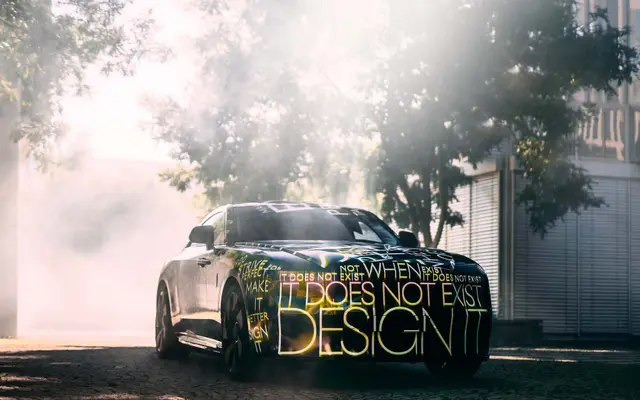
Riviera
Swiss Typefaces · Ian Party, Quentin Schmerber
A serif from Swiss Typefaces with design credits split between Ian Party (Regular) and Quentin Schmerber across the remaining styles.
Riviera is a Swiss Typefaces serif with art direction handled in-house and font engineering by Christoph Koeberlin. The family divides its design credit between Ian Party, who drew the Regular, and Quentin Schmerber, who handled the remaining cuts. Details beyond the immediate credits are sparse, but the release sits within Swiss Typefaces' broader catalogue of controlled, refined text and display typefaces.
The name and Swiss Typefaces' house style suggest a refined serif with transitional characteristics; the split design credit between Party and Schmerber implies a family developed across multiple optical or weight registers.